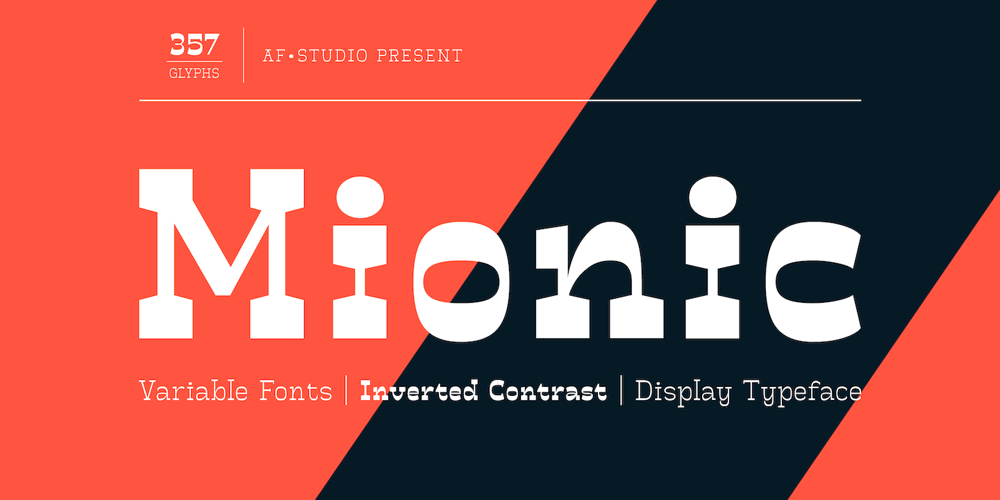
Mionic
Mionic font
Mionic Font Family was designed by Adam Fathoni Haris, Angga Kristiandri and published by Adam Fathony. Mionic contains 4 styles and family package options. Introducing Mionic, An Inverted Contrast Display typeface.Mionic is combinations between the Antique of slab serif typeface with the modern look of today.Available with the new Variable type system that made you more easy to choose the weight of this fonts.Mionic Bold is Best for the Headliner, Display, Or anything with bigger typography needs with a Strong Characteristic.The thinnest one are good for more longer text because of the contrast on every characters.